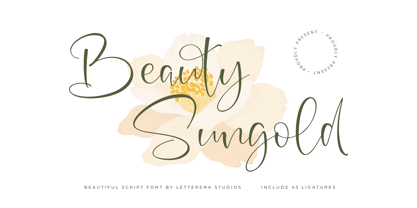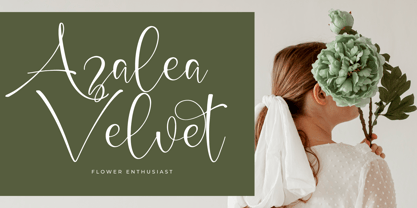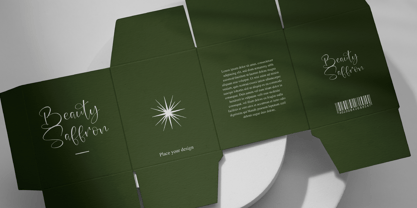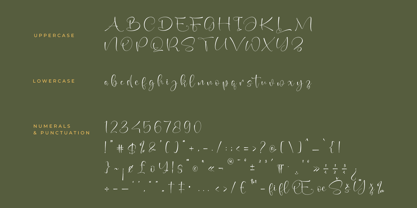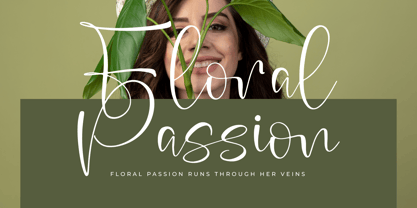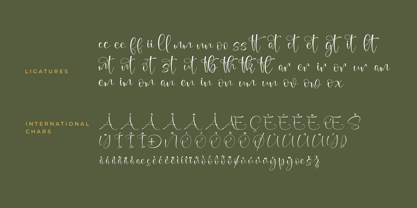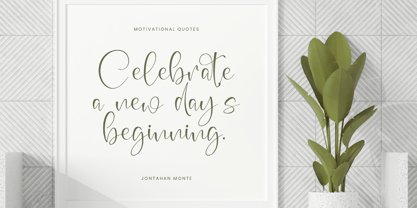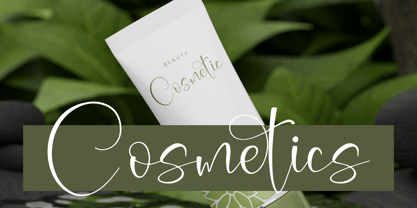
Beauty Sungold
The Beauty Sungold Font Family was designed by Heru Utama Putra and published by Letterena Studios. Beauty Sungold contains 2 styles and family package options. More about this family
Beauty Sungold is a modern and charming handwritten font that exudes elegance and personality. Its graceful, flowing strokes and sophisticated character make it perfect for upscale invitations, personal branding, and chic editorial designs. Elevate your projects with the refined allure and warmth of this font.